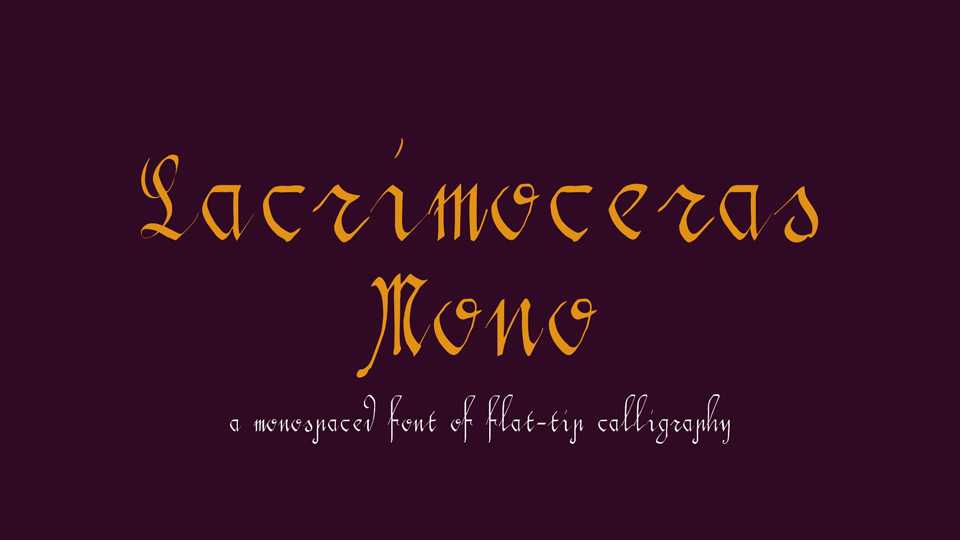
Download Lacrimoceras Mono font, a monospaced typeface born from the precision of parallel pen calligraphy. Lacrimoceras Mono font is perfect for projects that demand a balance of elegance and structure.